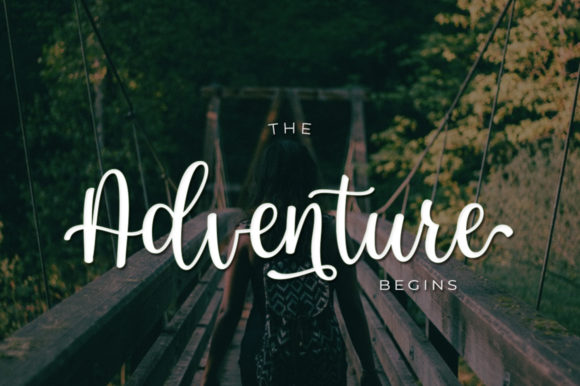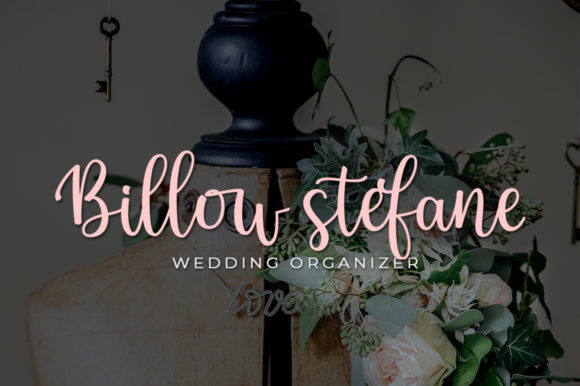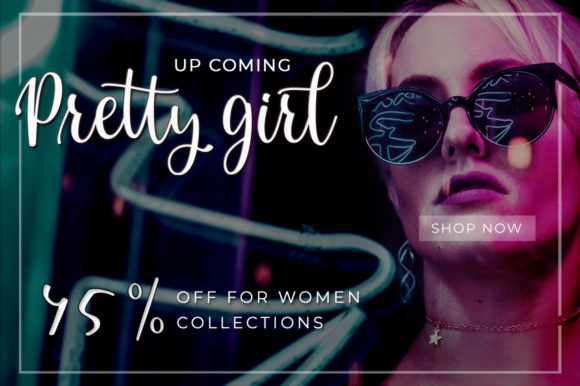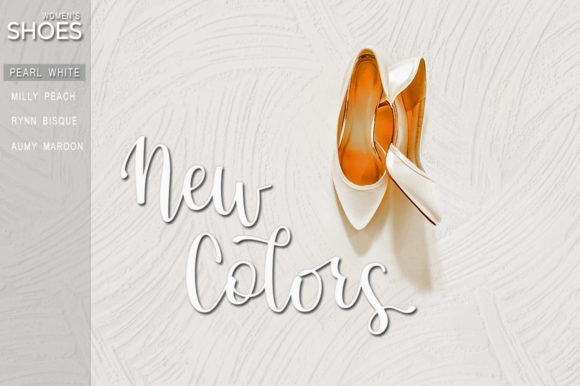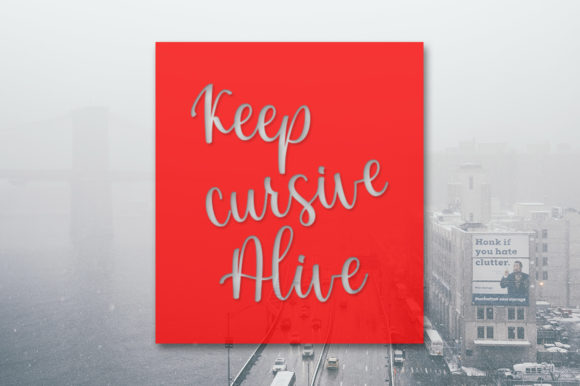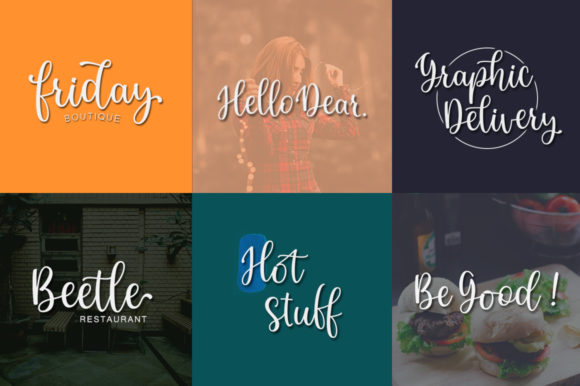
Introduction to Dourcha Font
The Dourcha is a modern script font.
It has a trendy and feminine style and includes an irregular baseline It looks good on wedding invitations, thank you cards, quotes, greeting cards, logos, business cards and more.